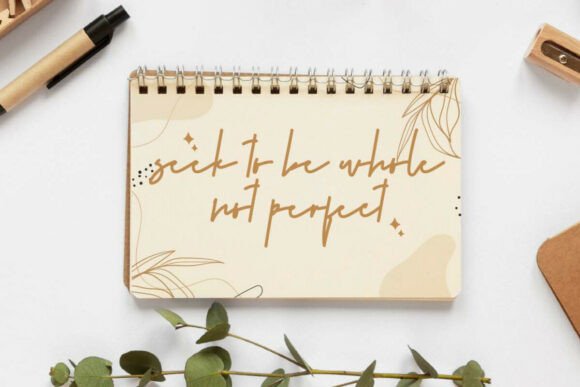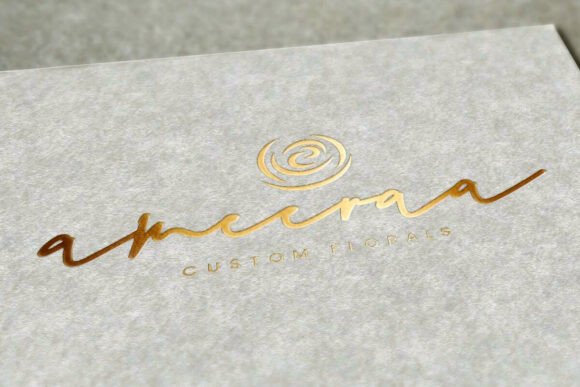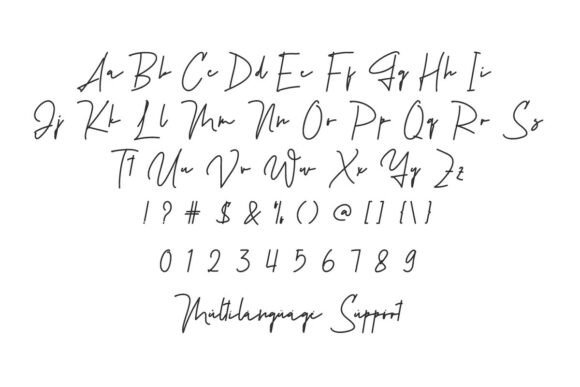
Introduction to James William Font
James William Font is a sleek and elegant signature handwritten font, designed by VinType Studio.
This font has thin lines, so it looks clean, like natural handwriting made from ink This font will be suitable for many industries, such as advertising, beauty products, design interior, event or wedding organizer, fashion, handicraft, homeware, photography, spa and salon, and more.